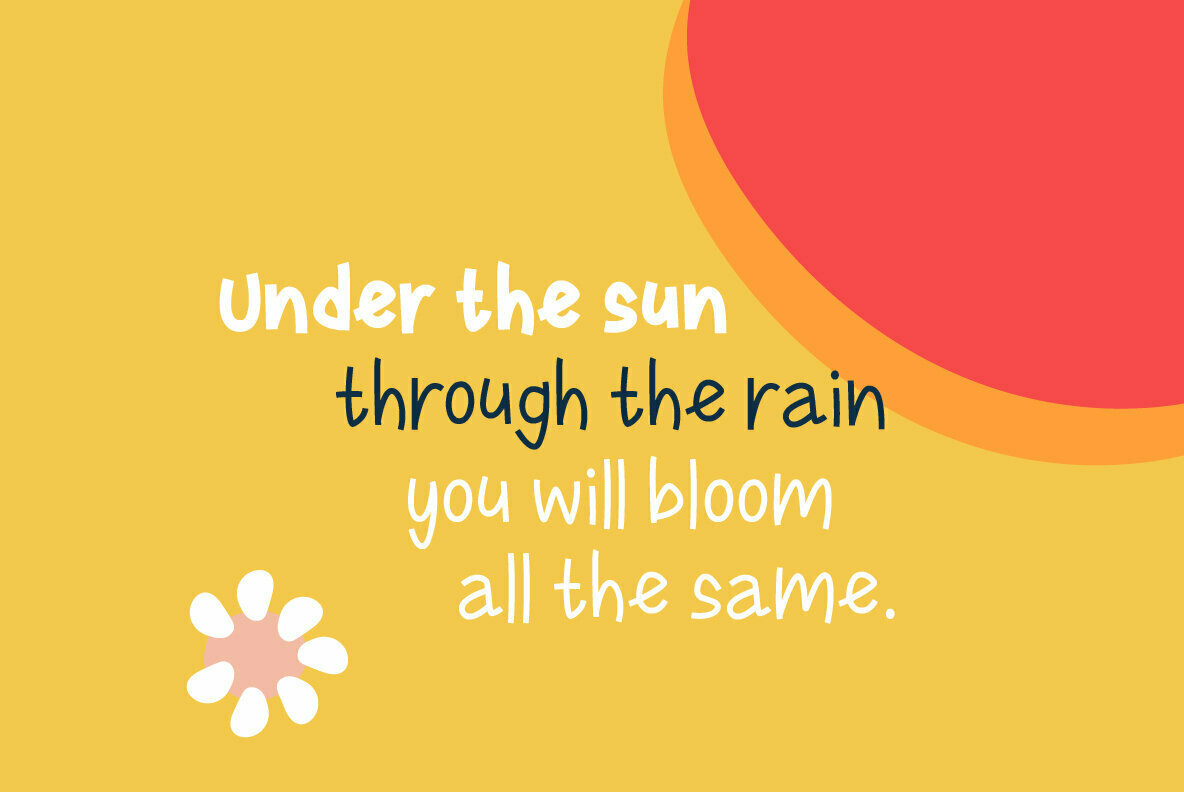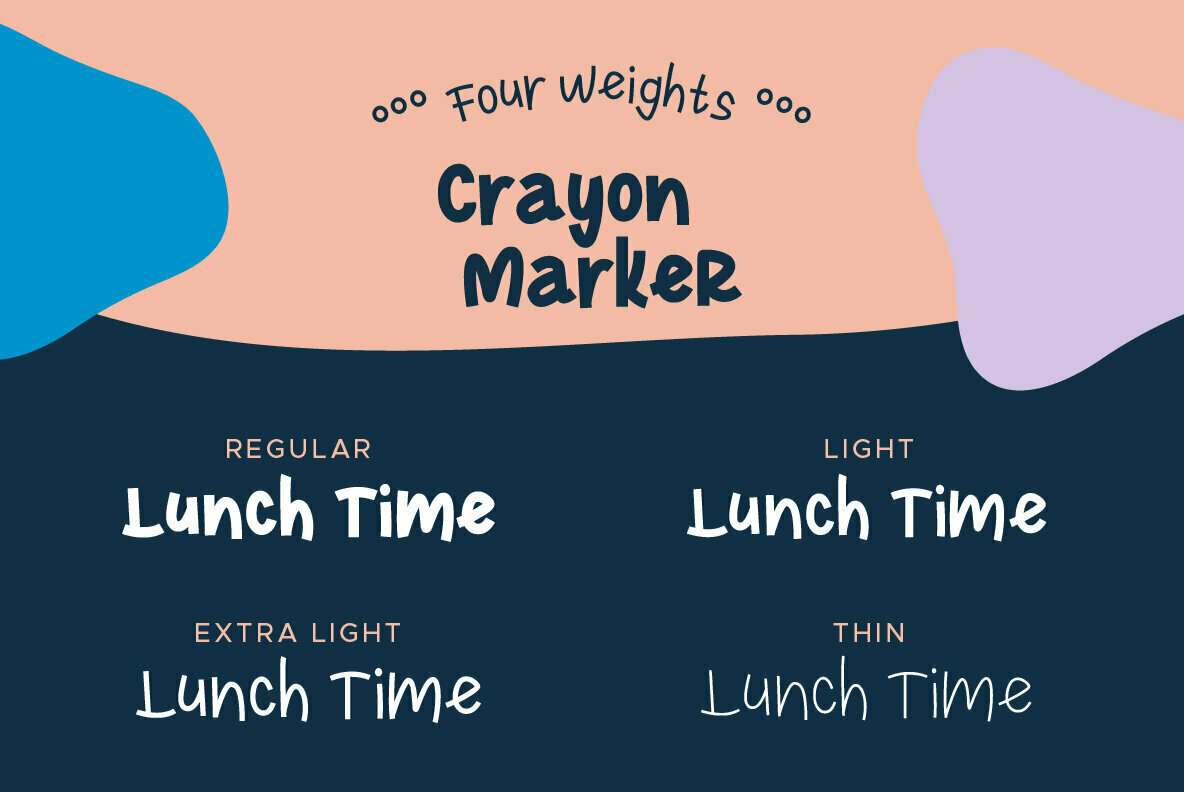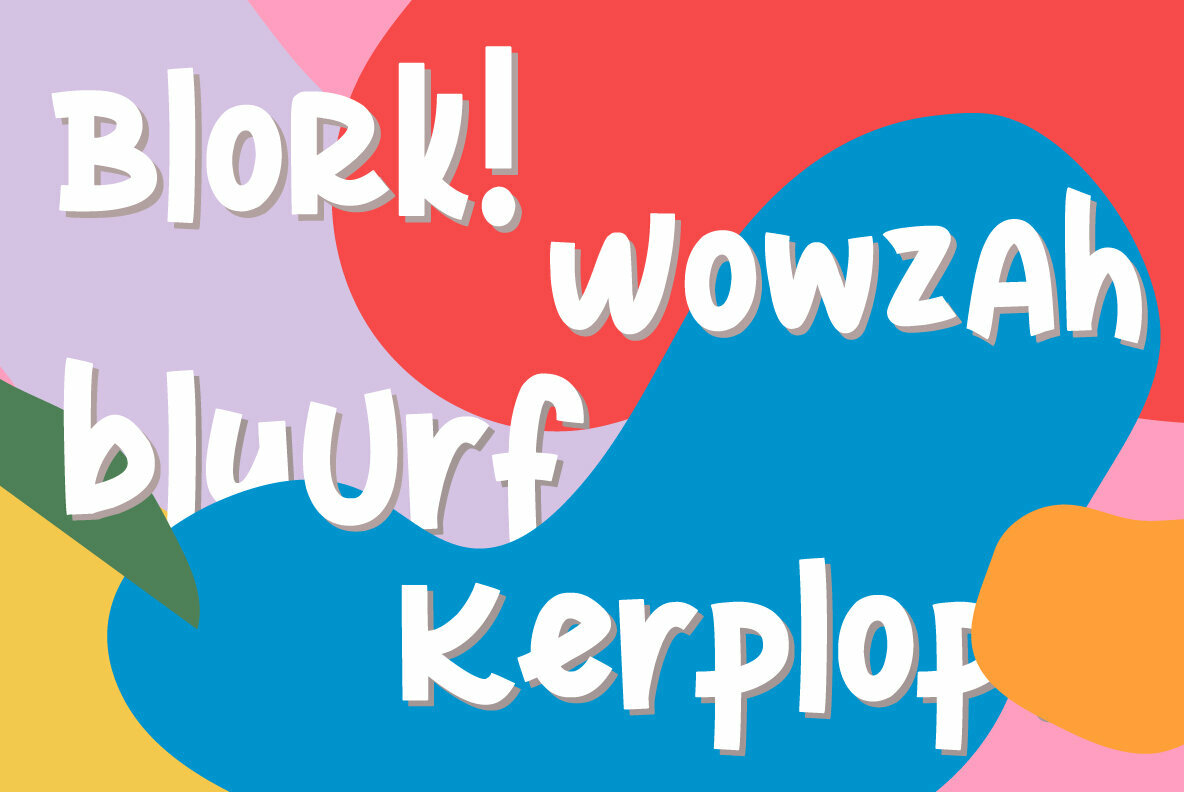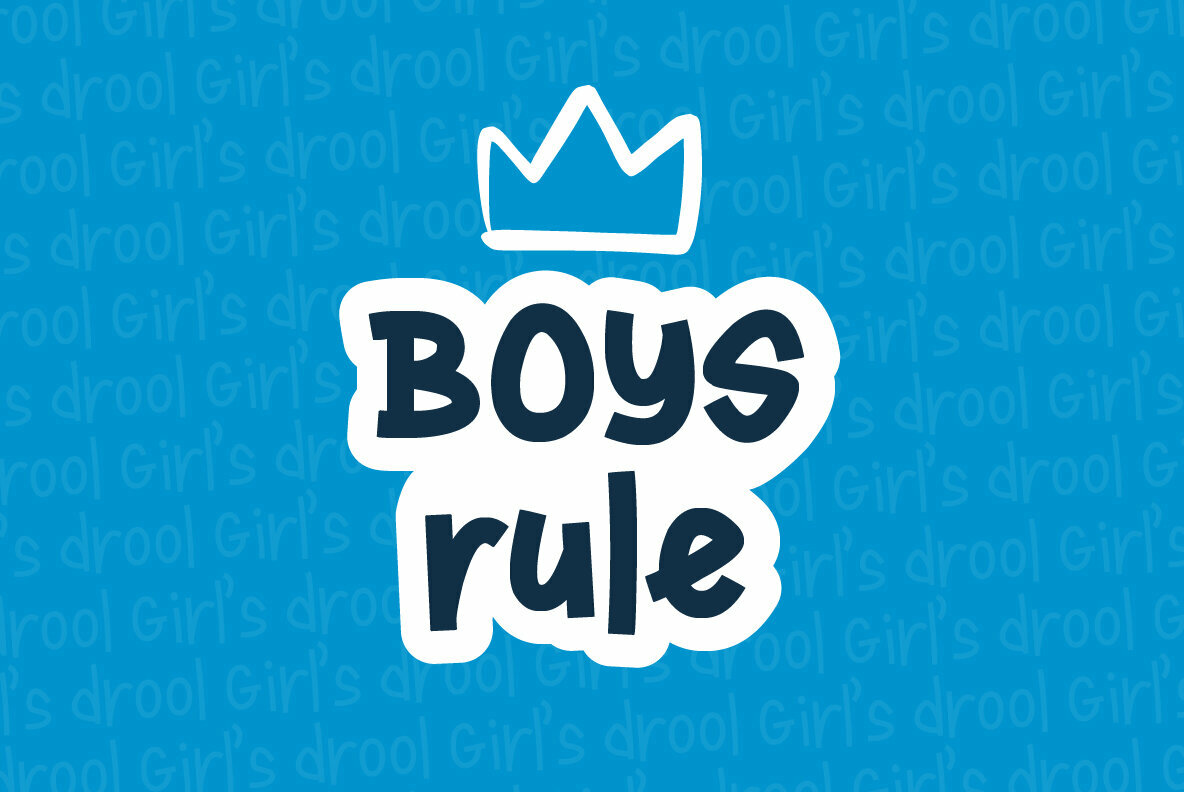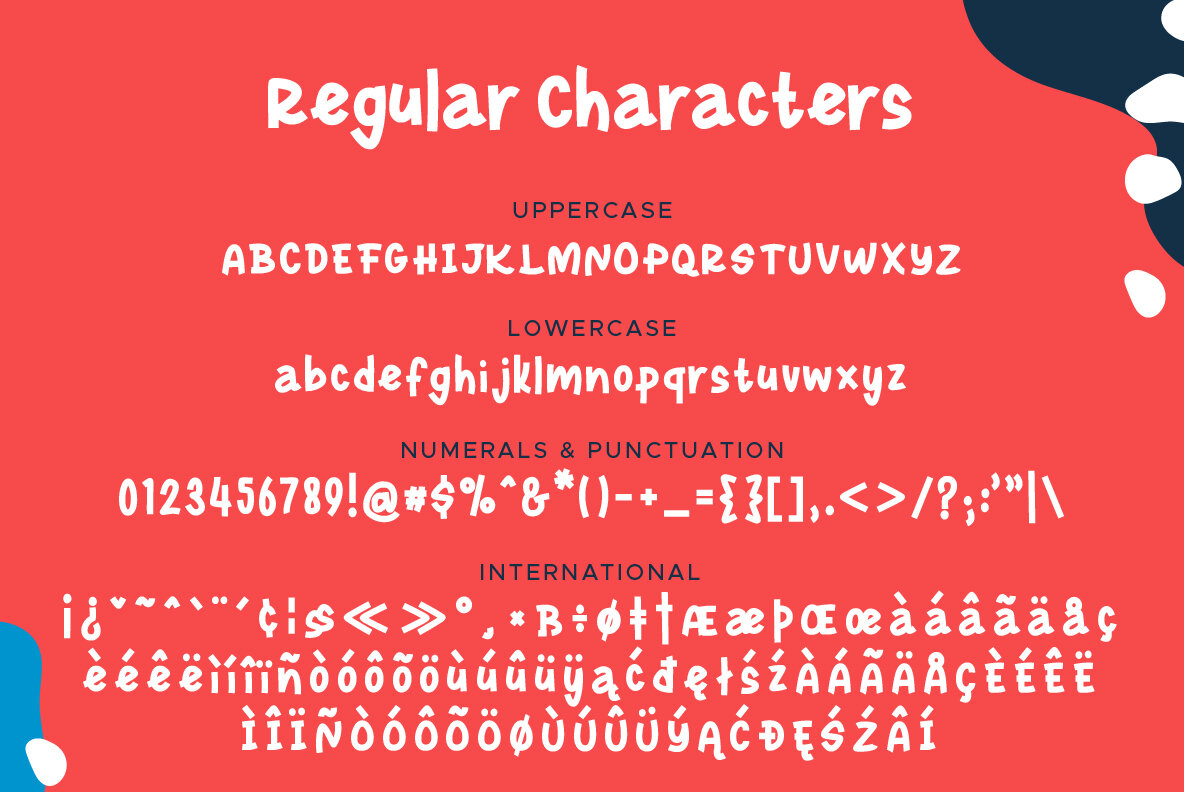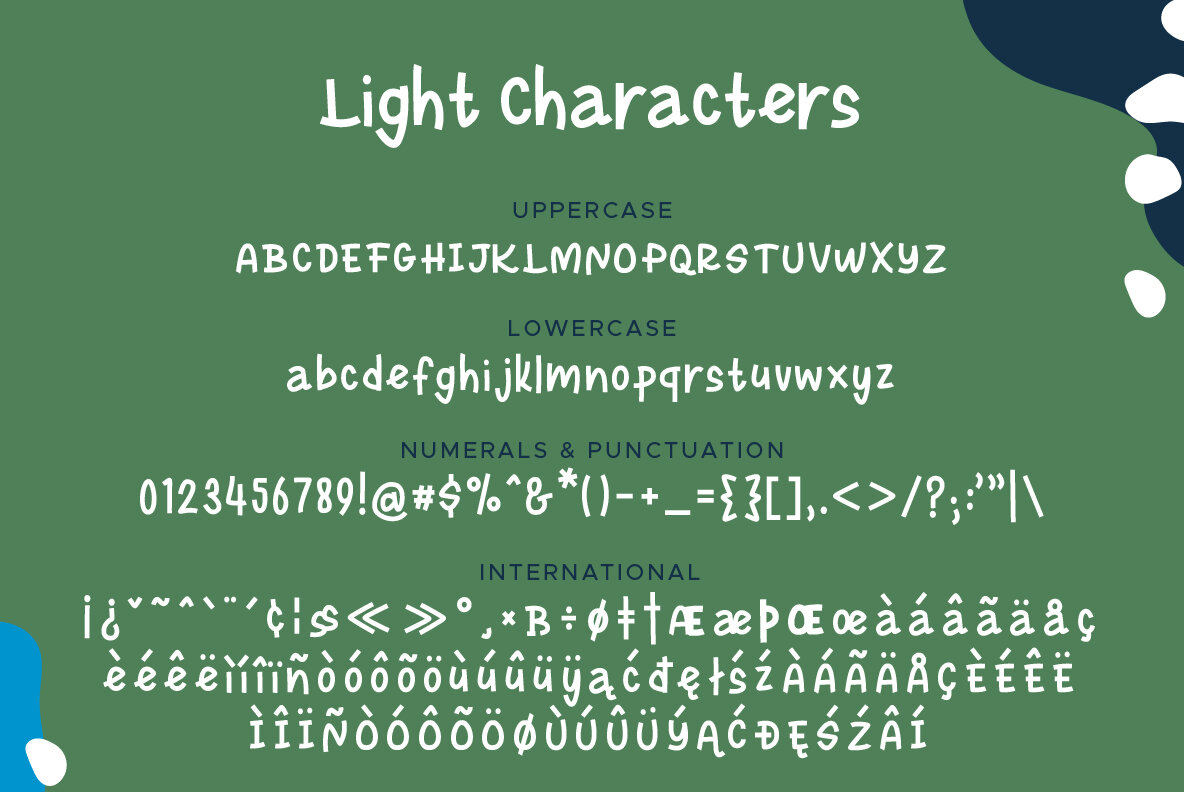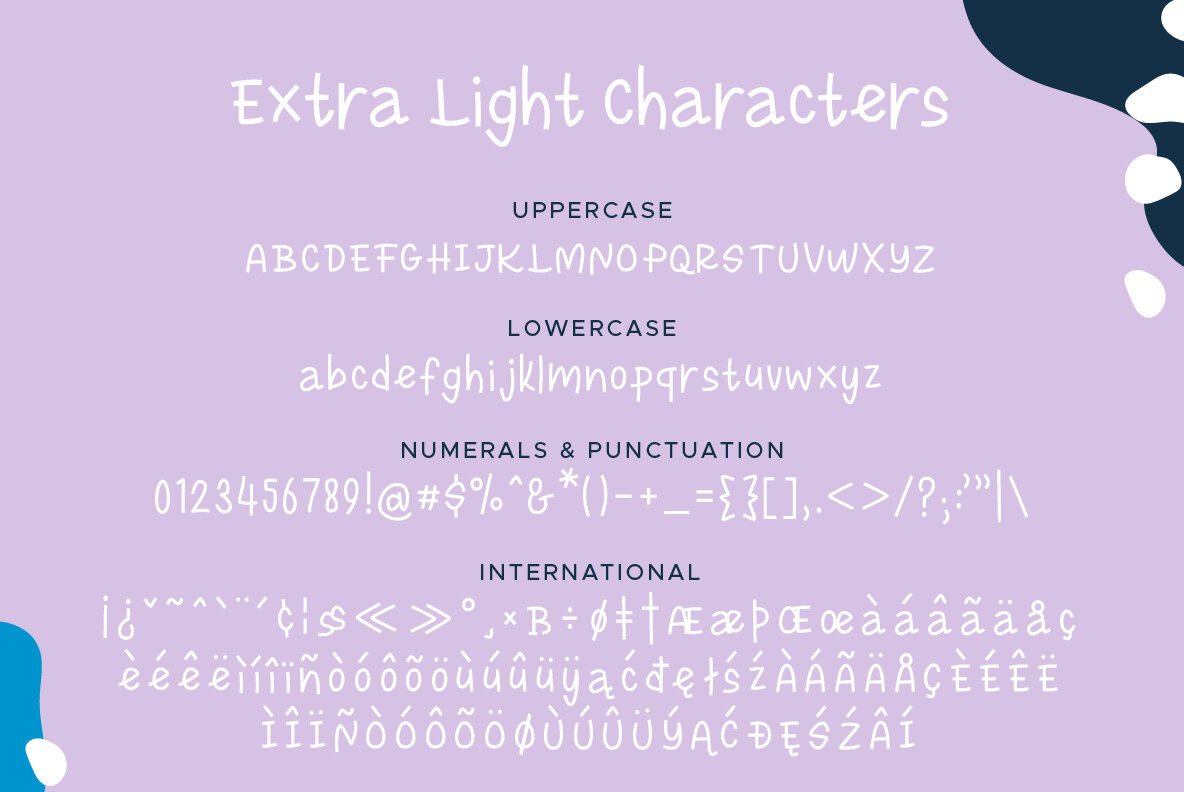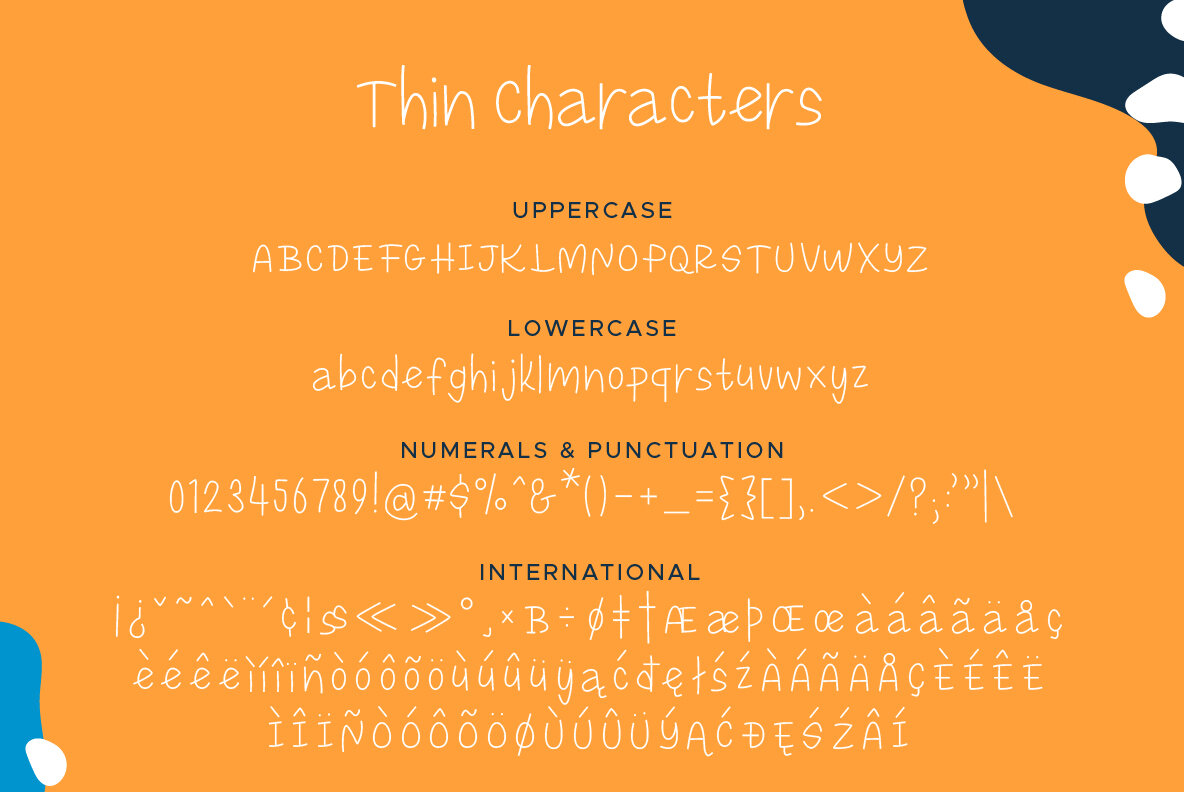
Crayon Marker Font
Crayon Marker is a playful hand-drawn typeface. AND it comes in 4 weights so you can Mix-N-Match to your hearts desire! Use for logos, quotes, invitations, greeting cards, journals, kids room wall art, baby clothing and more. This font will make your designs playful and fun!
- Crayon Marker Regular
- Crayon Marker Light
- Crayon Marker Extra Light
- Crayon Marker Thin
- Over 75 Bonus Glyphs including International Language Support